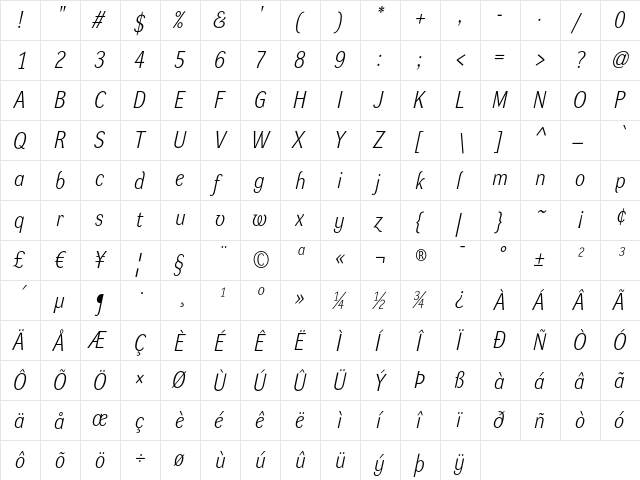
DynaGrotesk LM Italic
Design Context for DynaGrotesk LM Typeface
DynaGrotesk LM has the quiet confidence of well-executed sans-serif typography: versatile, unobtrusive, and dependable at any size. Its italic angle brings a sense of urgency and motion to the letterforms.
Font Pairing: Works well alongside a characterful serif or display font that can carry the expressive load while DynaGrotesk LM handles the functional copy.
Pro Tip: Use DynaGrotesk LM for UI labels, navigation, and short-form body copy where clean legibility is the priority.